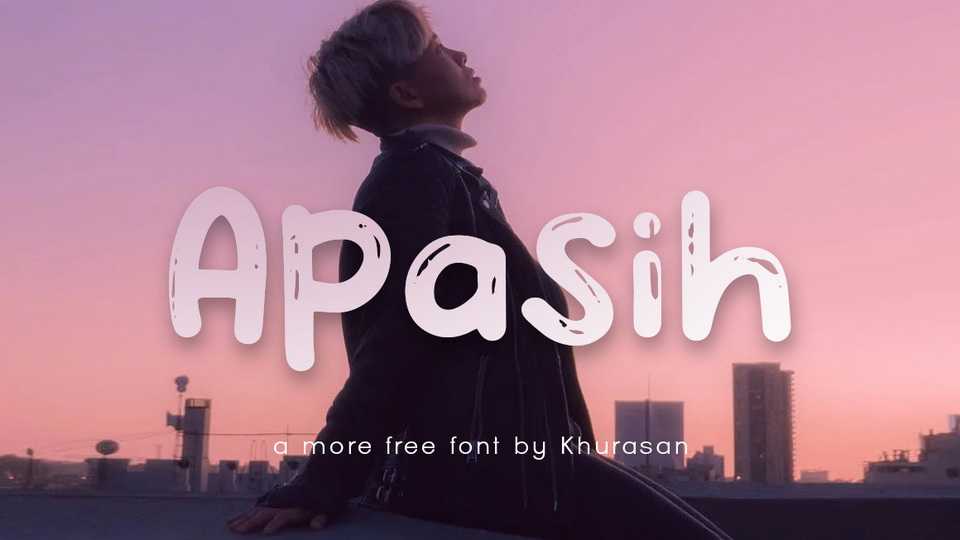
Download Apasih font, a funny and friendly handwritten typeface. Apasih is perfect for comics, posters, logos, magazines, book covers, banners, and many more.